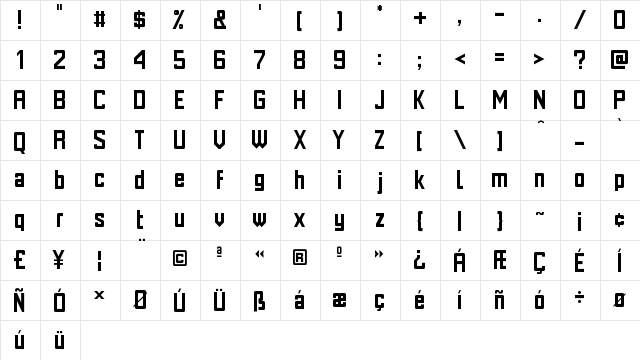
zancle rev eYe/FS Regular
Design Context for zancle rev eYe/FS Typeface
zancle rev eYe/FS offers clean, dependable letterforms without strong stylistic allegiance, making it a practical choice for designers who need flexibility.